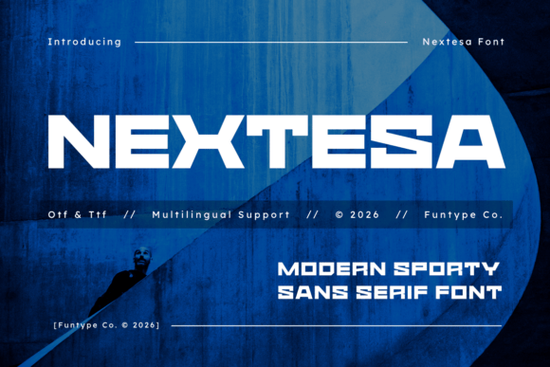
Nextera Font is a standout choice for anyone looking to add a strong, modern look to their design projects. With its bold and aggressive style, this font is perfect for creating eye-catching headlines and branding materials. Whether you're working on streetwear, sports jerseys, or promotional posters, Nextera Font delivers the impact needed to make your designs stand out.
Designed with a focus on clarity and strength, Nextera Font features extra-wide letterforms that give it a commanding presence. The geometric shapes and aerodynamic internal spacing make it ideal for high-impact visuals. This font is especially useful for print-on-demand sellers and small businesses looking to create professional-looking merchandise without compromising on style.
What Makes Nextera Font Unique?
One of the key features of Nextera Font is its ability to convey authority and confidence through its design. The heavy weight and expanded letterforms make it ideal for use in commercial design projects where visual impact is essential. This font works well in both digital and print formats, ensuring consistency across different mediums.
The font's clean lines and structured layout also make it easy to read, even at smaller sizes. This makes it a versatile choice for a wide range of applications, from website headers to product labels. Its industrial aesthetic gives it a modern edge that can enhance the overall look of any design project.
Best Uses for Nextera Font
Nextera Font is particularly effective for projects that require a strong visual statement. It's commonly used in urban streetwear designs, where the font's boldness complements the edgy style of the clothing. It also works well for athletic wear, adding a sense of energy and movement to sports-related branding.
For custom vinyl decals and signage, Nextera Font provides a clear and impactful appearance that grabs attention. Its robust design ensures that it remains legible even in challenging environments. This makes it a reliable choice for businesses looking to create durable and visually striking signage.
How to Use Nextera Font Effectively
To get the most out of Nextera Font, consider pairing it with complementary typefaces that balance its boldness. For example, using a simpler sans-serif font for body text can help create a more refined and professional look. This approach allows the headline to stand out while maintaining readability throughout the design.
When working with Nextera Font, pay attention to spacing and alignment to ensure that the text looks clean and organized. Adjusting the tracking or kerning can also help improve the overall appearance, especially when using the font for longer blocks of text.
For those new to using bold fonts, experimenting with different sizes and weights can help you find the right balance for your project. Testing the font in various contexts will also help you understand how it performs in different design scenarios.
Nextera Font is a powerful tool for designers and creators who want to add a strong, modern look to their work. Its versatility and visual impact make it a valuable addition to any design toolkit. Whether you're working on branding, merchandise, or promotional materials, this font can help elevate your designs with its bold and dynamic style.
- Test Nextera Font in different design projects to see how it performs.
- Pair it with simpler fonts to create balanced and professional layouts.